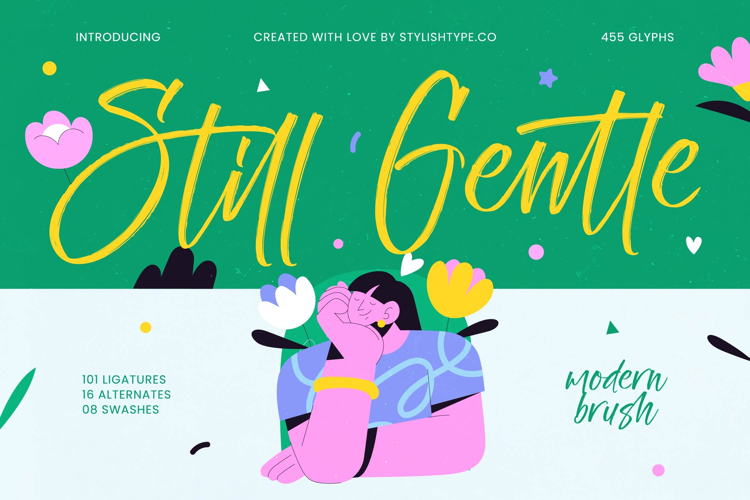
Still Gentle - Modern Brush Font
Still Gentle Italic
Still Gentle
Injecting instant personality and organic flow into your creative projects, Still Gentle - Modern Brush Font is the definitive expressive script solution. This typeface captures the authentic energy of a hand-painted stroke, blending rough, textured edges with smooth, sweeping connections. It offers an irresistible, fluid rhythm that is both casual and highly sophisticated, perfect for designs that need to feel genuinely handmade and approachable while maintaining a clean, modern edge.